Nina Faulhaber found Aeroplan in a forgotten 1916 book on aircraft engines
Nina Faulhaber’s modern antiqua came to us under the name Flieger and was later renamed Aeroplan. In September 2022, Nina presented her Aeroplan work-in-progress for the first time at TypeTogether’s book launch-related type event in Barcelona, and TypeTogether has scheduled the release of the Aeroplan font family for late Spring 2023. Over the course of those two years, we have had the chance to follow Nina’s great work, and now it’s finally time to talk with her about typefaces, inspiration sources, and ideal use of her font.
Nina Faulhaber
Nina presents her Aeroplan process in Barcelona in 2022.
Tell us more about your background. How did you come to love type?
I see some parallels there. Both fields have craft elements, requiring both creative freedom and precision. I think the process of cutting into wood can also be related to my work as a type designer through the precise setting of clear digital forms, as well as the search for interesting shapes, compositions, and spaces.
“Ride”, oak, carved, 2022.
“Herd”, smoked oak, carved, 2016.
“Figurines”, lime and Swiss stone pine wood, carved, 2018.
Where did Aeroplan come from in the first place?
In a second-hand shop I found a small, inconspicuous brown book on aircraft engines from 1916 entitled “Motorschule für Flieger” (“Engine school for aviators”). I particularly liked the unusual format, the extravagant illustrations, and the interesting layout. On the first pages of the book — later the text font changes — I found a somewhat irregular, awkward text font with unusual details in the lettershapes. It is similar to the body types distributed at that time by many foundries as “Mediäval Antiqua”.
I have not been able to determine the exact origin of the typeface. However, the publishing house, Waldheim-Eberle A.G. Wien-Leipzig, had its own foundry that produced type for in-house use only. Therefore, it’s reasonable to believe that the typeface was produced there, was never advertised outside the publishing house, and has since been forgotten. Due to its unusual characteristics, however, it seemed to me worth digitising, so this was the original inspiration for Aeroplan.
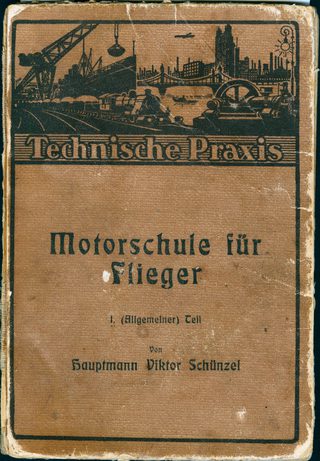
Cover of “Motorschule für Flieger” (“Engine school for aviators”), 1916.
Inside text samples from “Motorschule für Flieger” (“Engine school for aviators”), 1916.
Aeroplan process samples, 2022.
One main feature of Aeroplan seems to be the italics. Even an untrained eye can recognise its long outstrokes and instrokes right away. What do you personally consider the main innovation of your typeface?
Aeroplan was created as a revival based on a historical source. This process of translation into a new medium itself involved many innovations, so that the design could become a contemporary typeface which nevertheless shows its roots.
With Aeroplan, Nina has achieved the confidence of an accomplished artist with a meticulous attention to detail that can only be seen in the best contemporary type designs.
TypeTogether has always maintained a very cooperative environment. How do you feel about sole authorship versus cooperation in favour of a better result?
Both have their pros and cons. I think the “right way of doing things” depends a lot on the project and the personality of the designer. For me, working with others is often an inspiring, empowering process. The dynamics of having a common project and goal can provide enormous power. But this also requires a good team that works with and not against each other. Too many opinions can also slow down the process extremely and create a feeling of dissatisfaction and stagnation.
Left to right: José Scaglione, Veronika Burian, and Nina Faulhaber checking Aeroplan process samples, 2022.
How do you think Aeroplan improved thanks to the Gerard Unger Scholarship?
Through the collaboration with TypeTogether, the typeface has changed a lot. This process is important to turn a first draft into a finished typeface. Aeroplan has benefited greatly from the feedback and modifications, which have been very careful and have preserved the original character with its awkward, peculiar charm. I learned a lot thanks to this mentorship program, which of course shows in Aeroplan’s overall final form.
And how does Aeroplan fit into TypeTogether’s portfolio?
Aeroplan has its own character, which I think complements TypeTogether’s portfolio well. The typeface has a certain digital feel and at the same time a playful naïveté, which makes it somewhat stubborn in some parts, but gives it individuality and expressiveness.
What would be your dream use of Aeroplan?
Nina Faulhaber is a type designer, graphic designer, and sculptor from Frankfurt (Oder), Germany. After completing three years of professional training as a wood sculptor in the Bavarian Alps, she moved to Augsburg, Germany, where she studied communication design and specialised in type design. Nina is fascinated by the interplay between precise craftspersonship and artistic freedom, which she practices both in her work as a designer and as a sculptor.